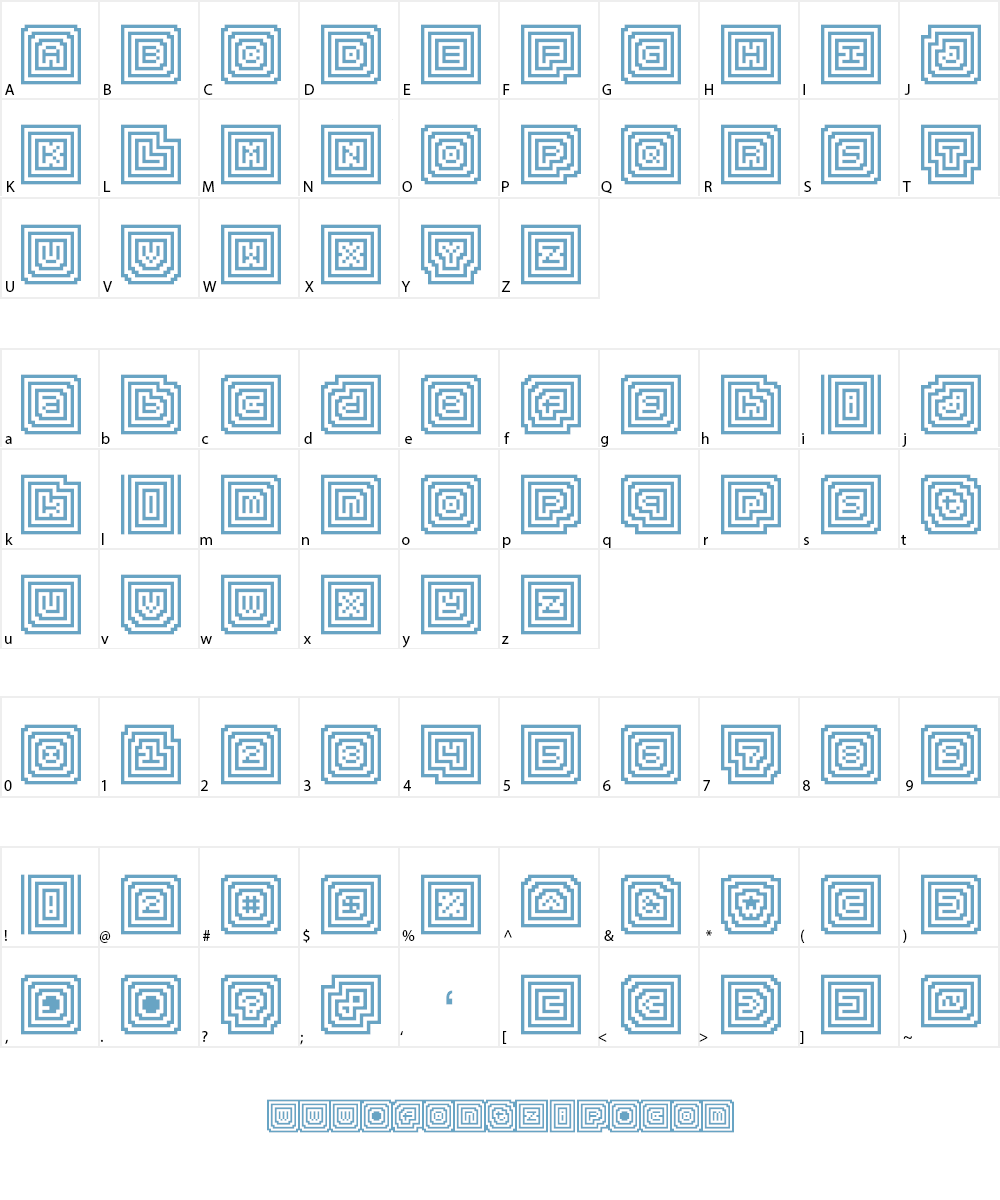
Original size: 12.75pt (use multiples of this size for pixel perfection)
Two multi-outline designs with intentional aliasing. At the original size, they look nicely textured. The optical illusions become more harsh as one zooms in.